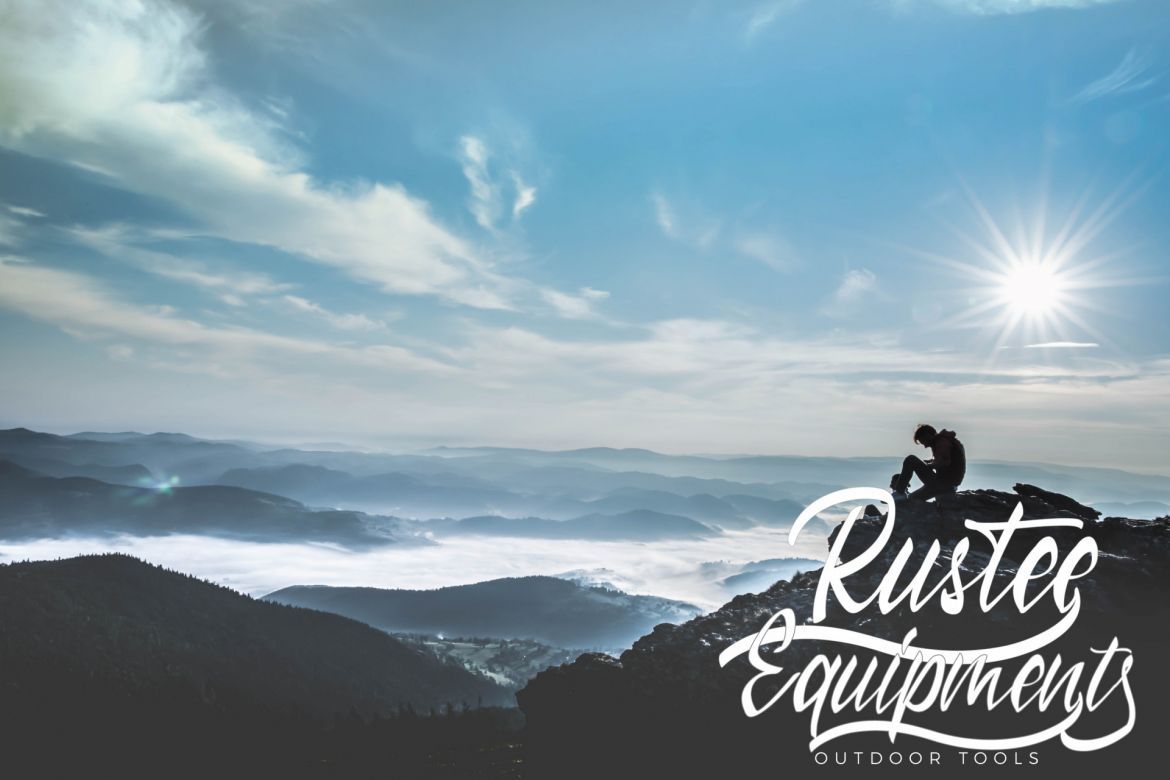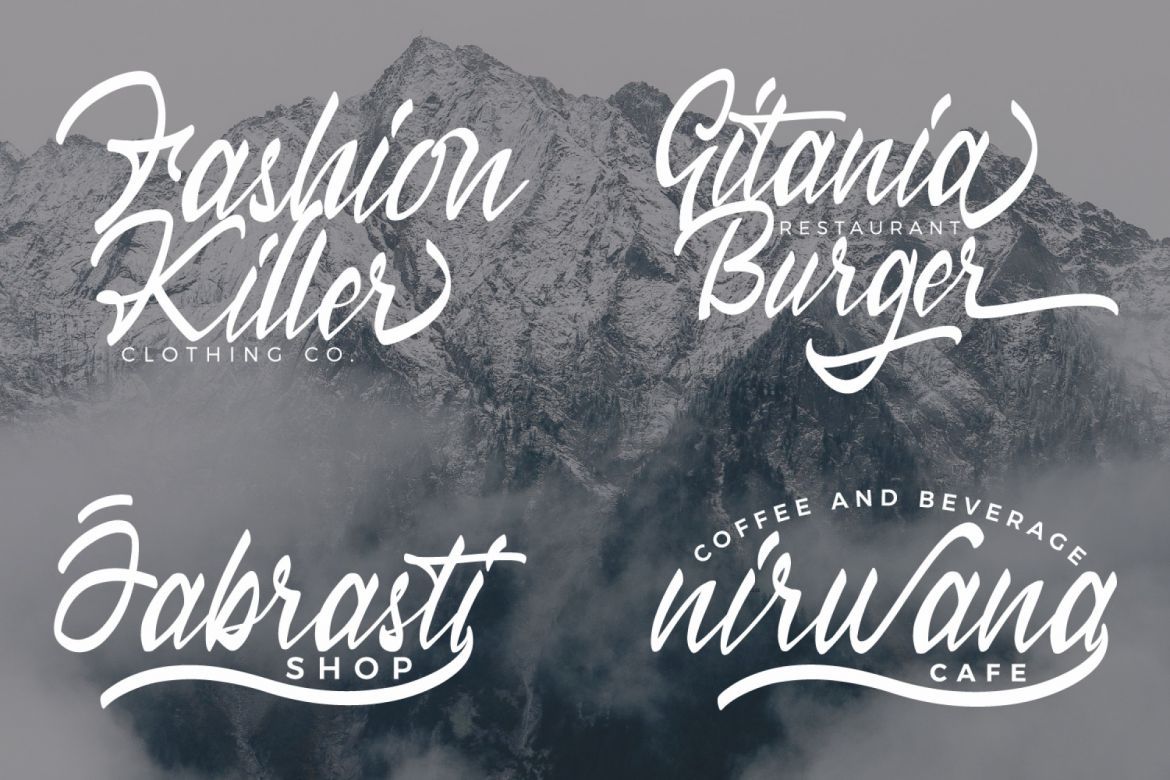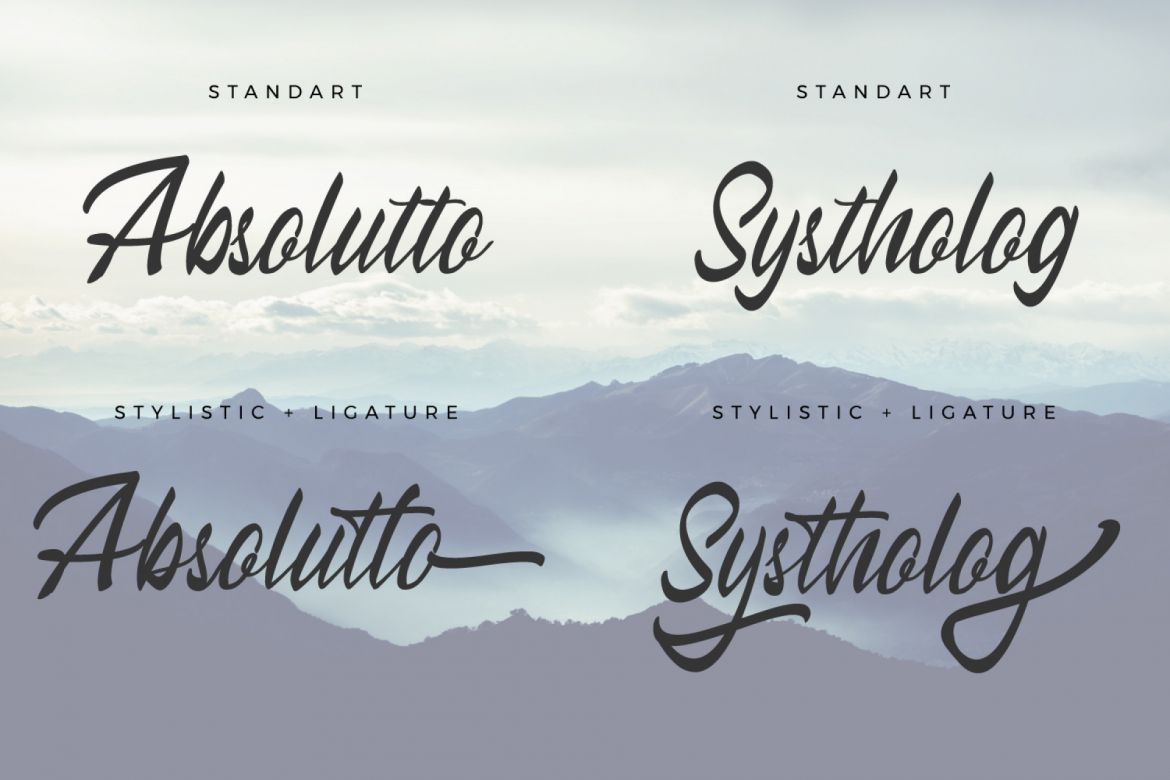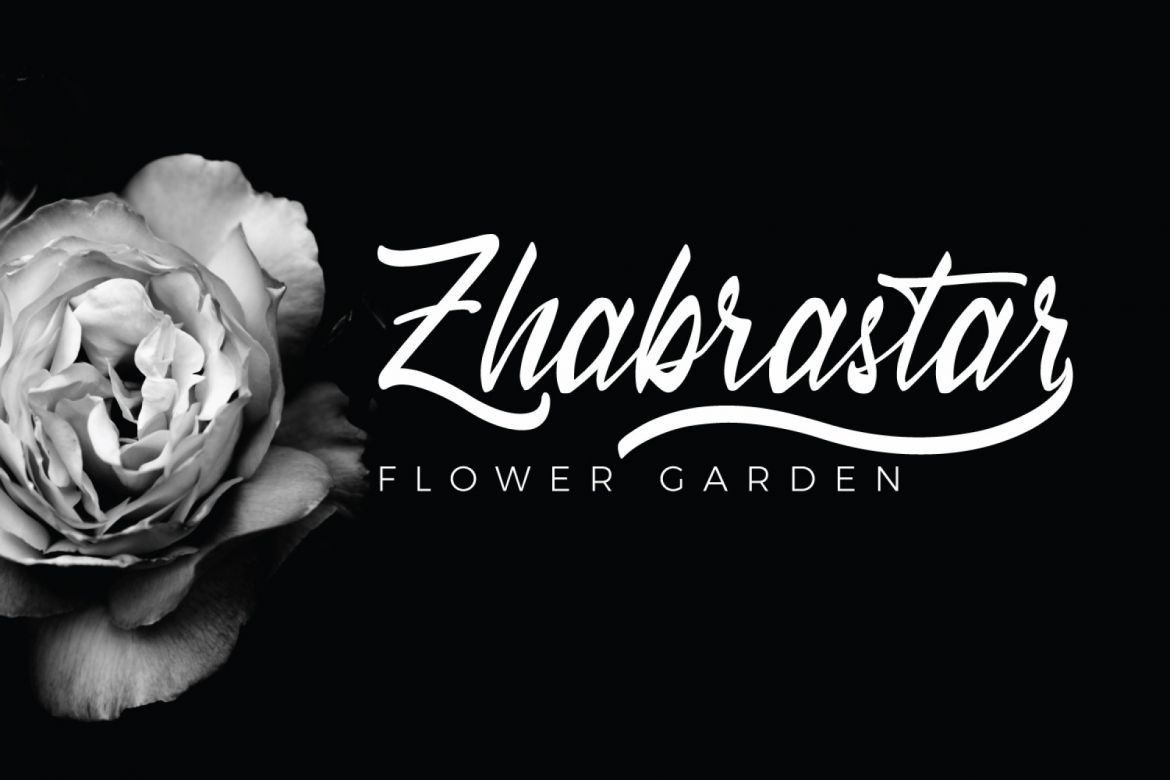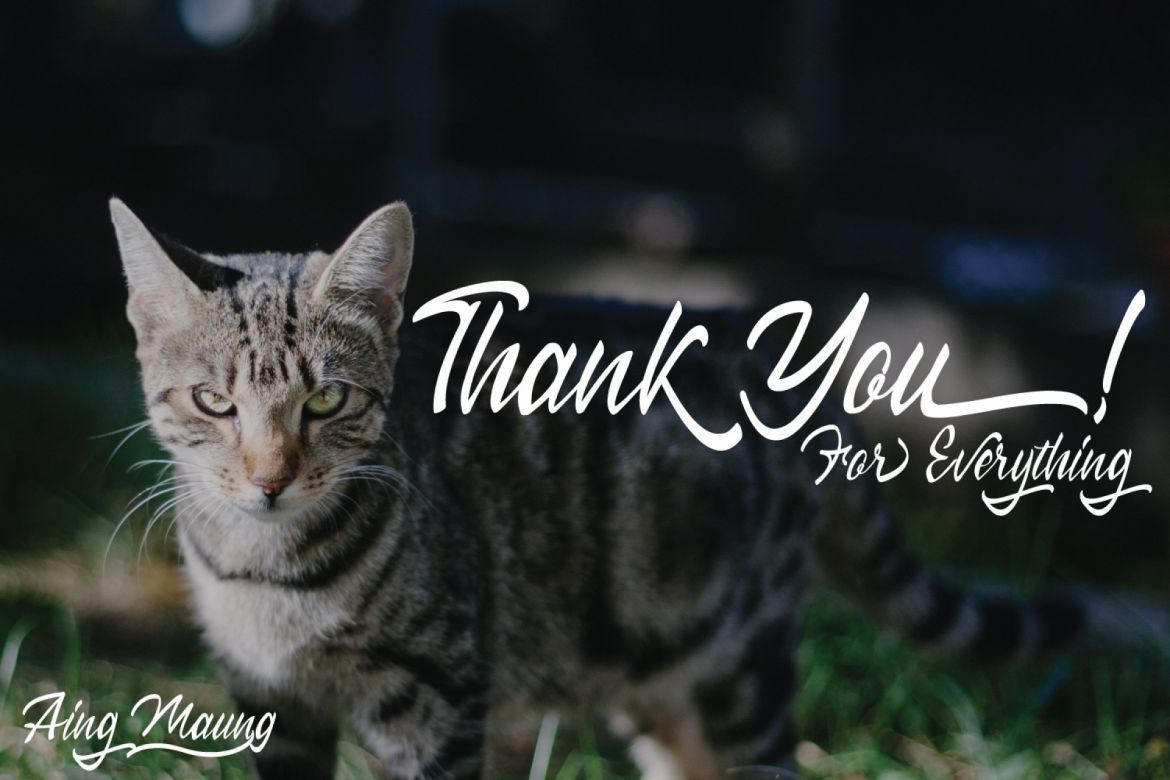
Himallaya Script Font
Himallaya is script font calligraphy with elegant and modern style.
Himallaya is perfect for branding projects, logo, wedding designs, social media posts, advertisements, product packaging, product designs, label, photography, watermark, invitation, stationery and any projects.